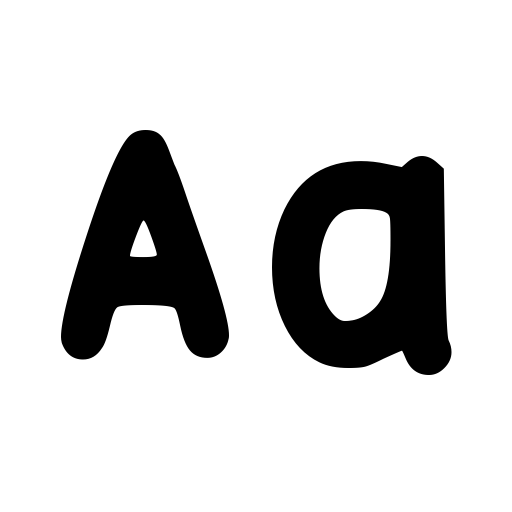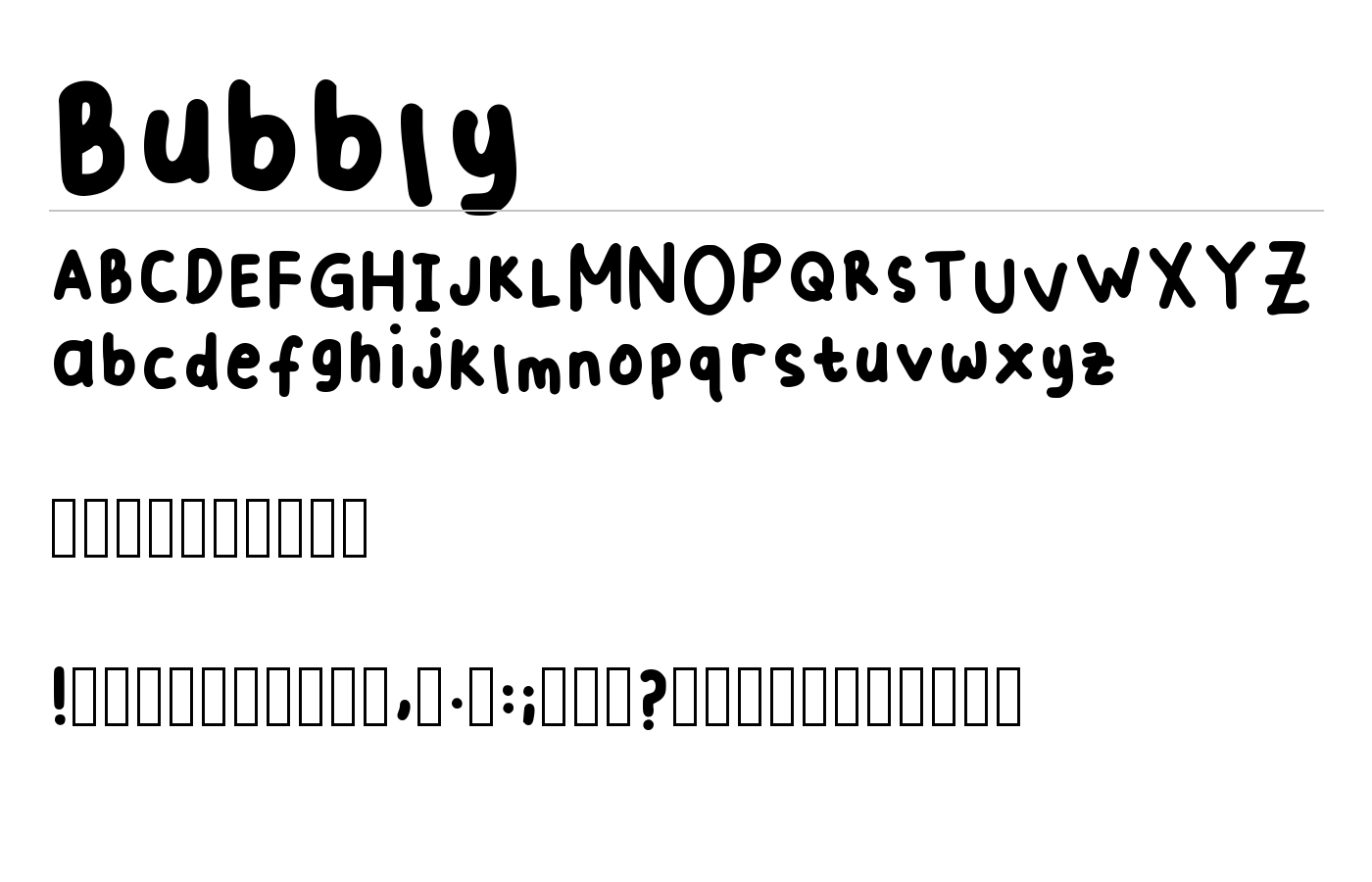
Bubbly is a playful, rounded sans serif font with a casual, hand-drawn feel. Its bold weight, irregular shapes, and friendly curves make it perfect for informal, fun designs like kids’ materials, logos, and creative packaging, where a warm and approachable tone is desired. This font’s unique, bubbly character adds personality and charm, making it ideal for eye-catching headlines and branding.
Bubbly Font